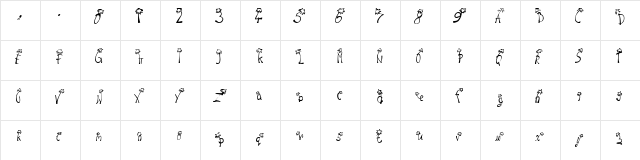
Red Coast Regular Font Preview
Red Coast Regular
Design Context for Red Coast Typeface
Red Coast is a composed and adaptable typeface that performs quietly and consistently across a wide range of design contexts.